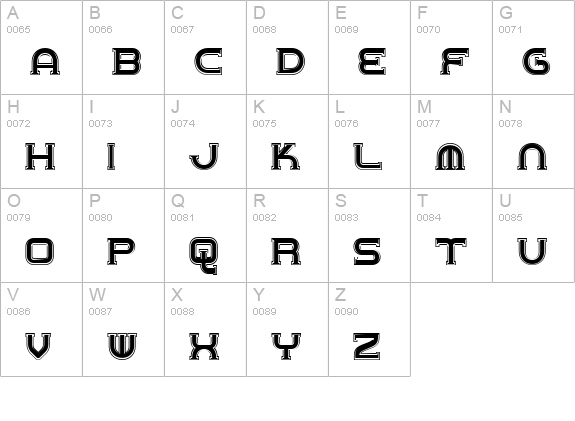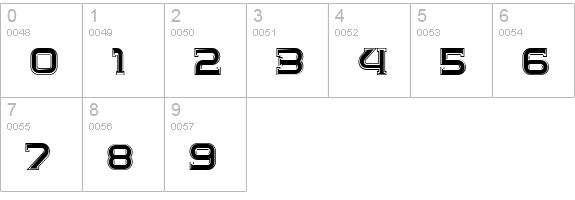
Chrome Yellow Inline NF Font Details
Chrome Yellow Inline NF is a stunning display font that exudes a sense of modernity and sophistication. Its sleek lines and intricate detailing make it perfect for adding a touch of elegance to any design project. The striking inline style of this font gives it a unique and eye-catching appearance that is sure to capture the attention of viewers. What makes Chrome Yellow Inline NF even more appealing is that it is completely free to download. That's right, you can get your hands on this beautiful font at no cost at FontsMarket.com. Whether you're working on a branding project, a poster design, or any other creative endeavor, Chrome Yellow Inline NF is sure to elevate your work to the next level. Don't miss out on the opportunity to enhance your designs with this exquisite font – download it today and see the difference it can make!